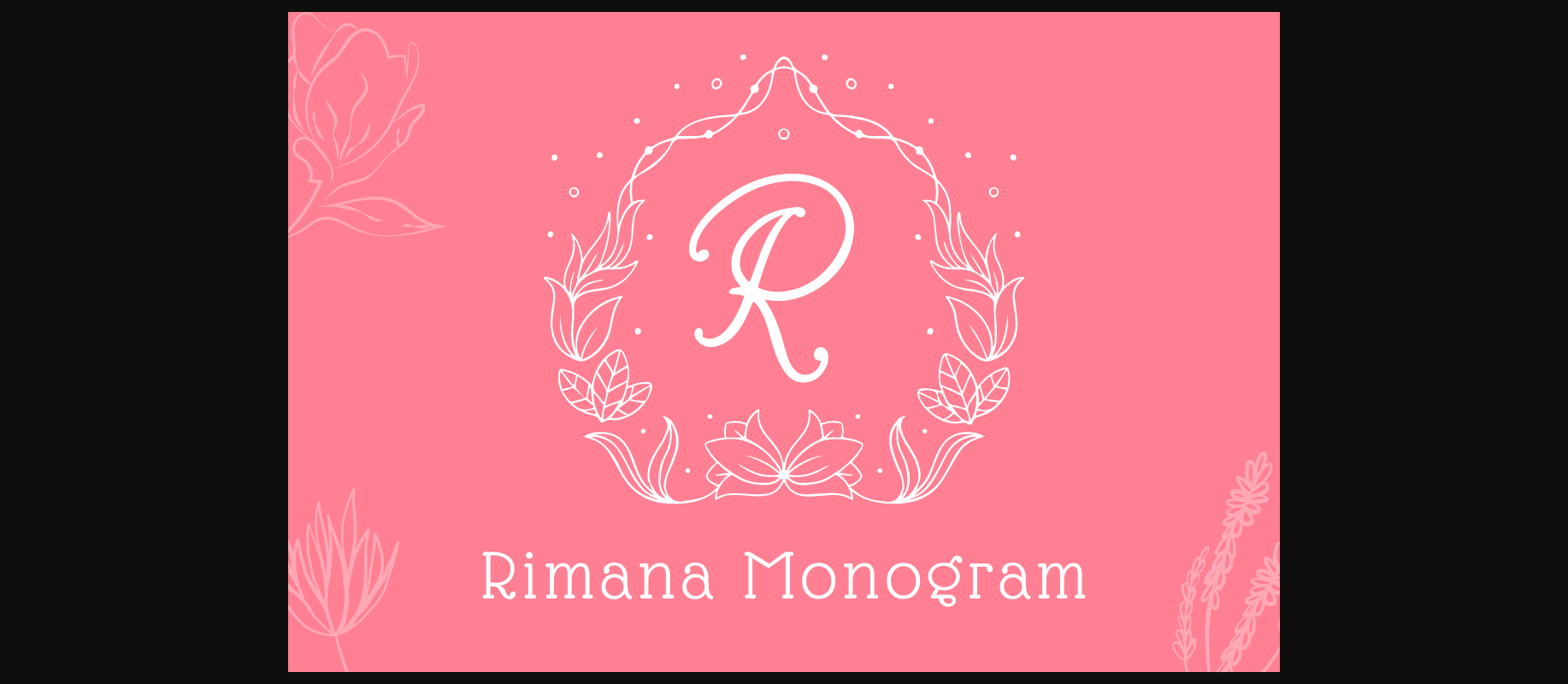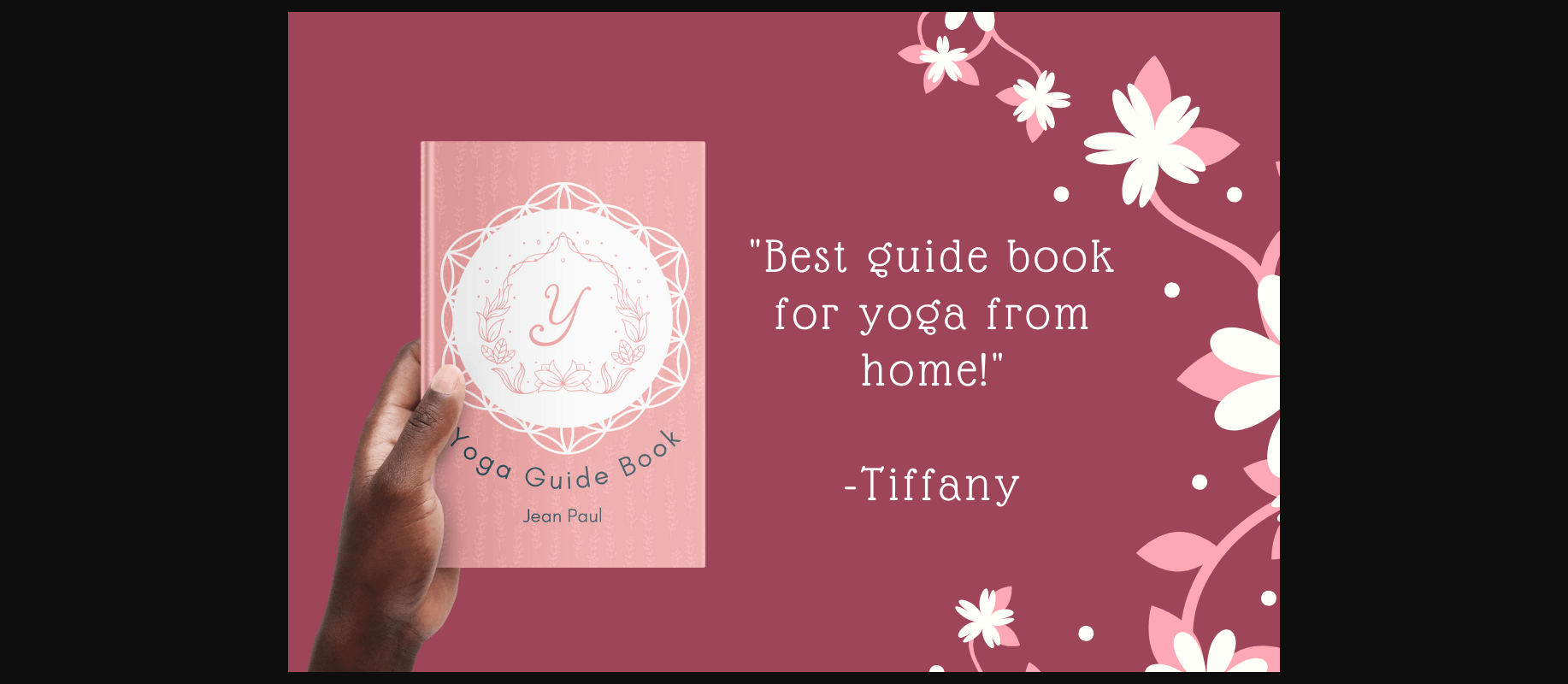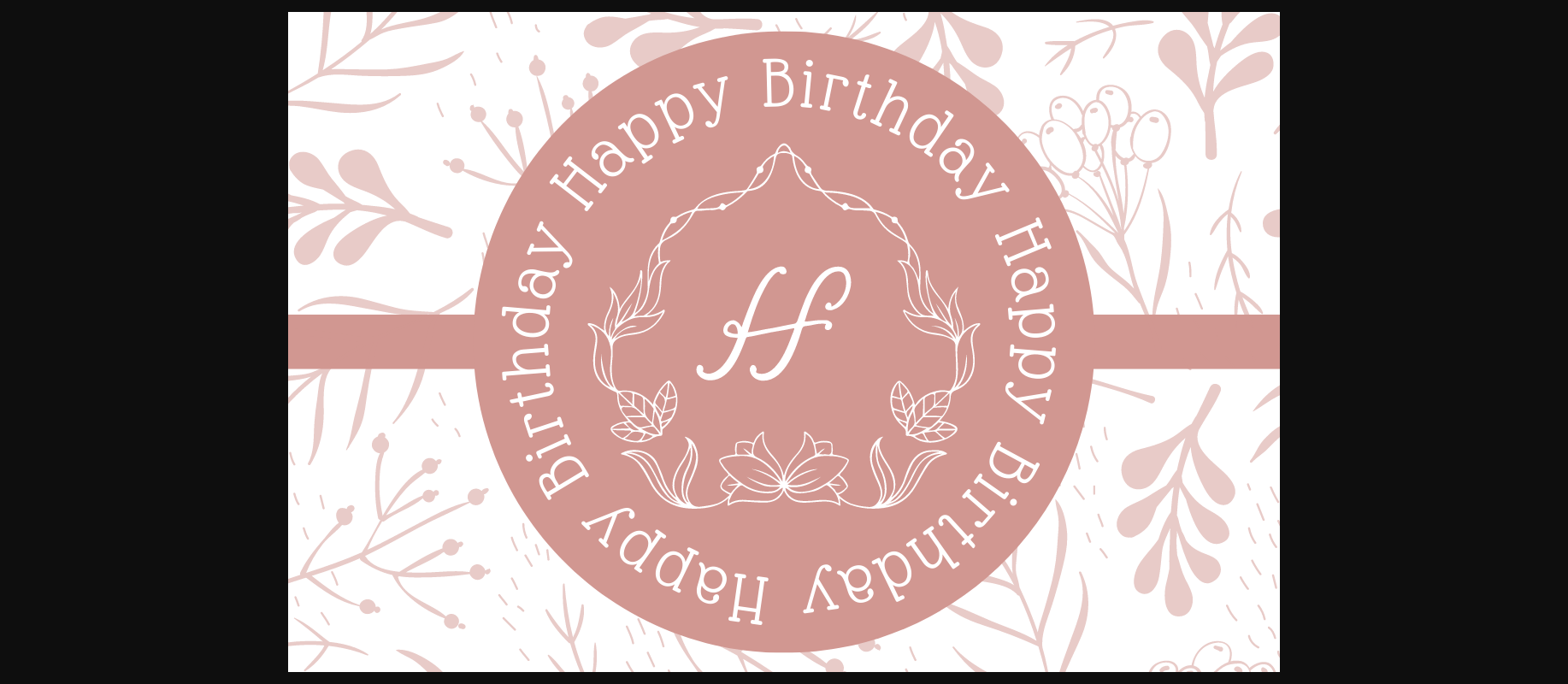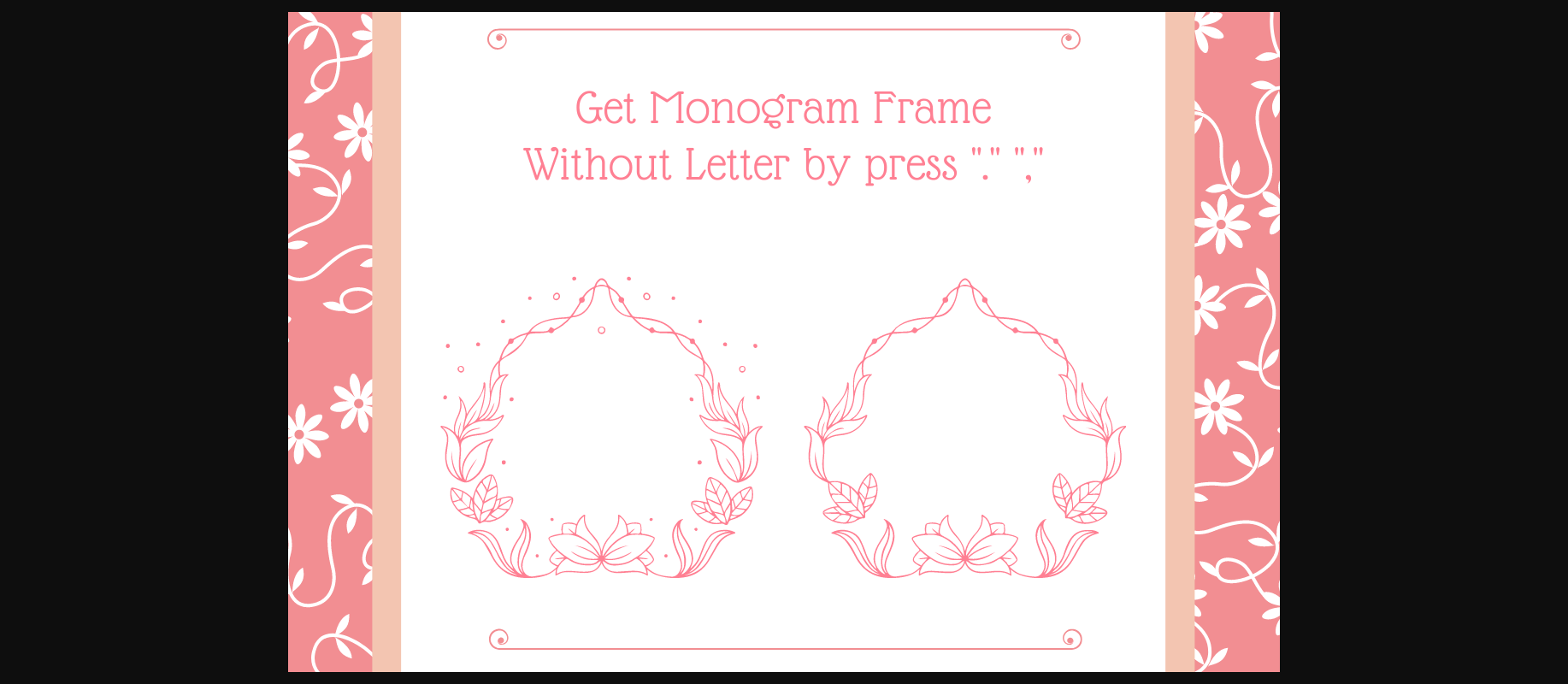
Rimana Monogram Font
About Rimana Monogram Font
Rimana Monogram is a beautiful flower decorative font. Fall in love with it and use it on your special occasion creations, business designs, logos, branding, social media posts, and wedding cards.